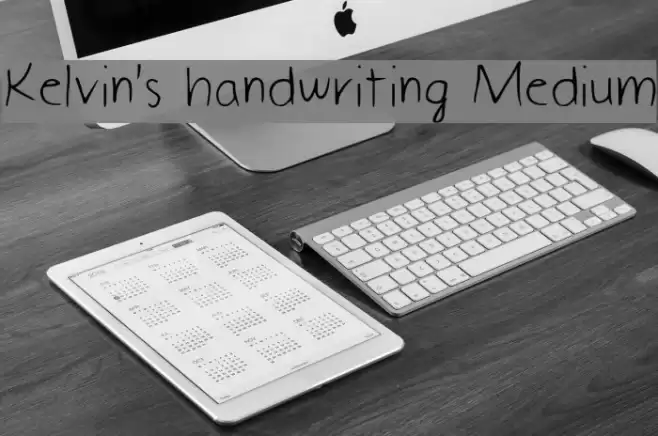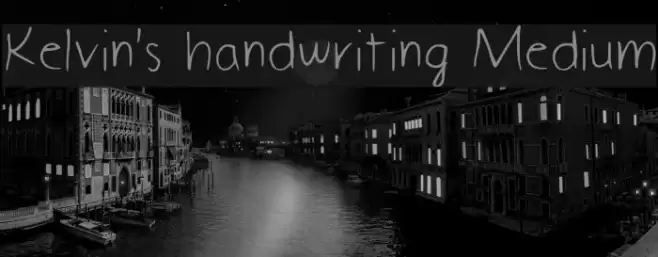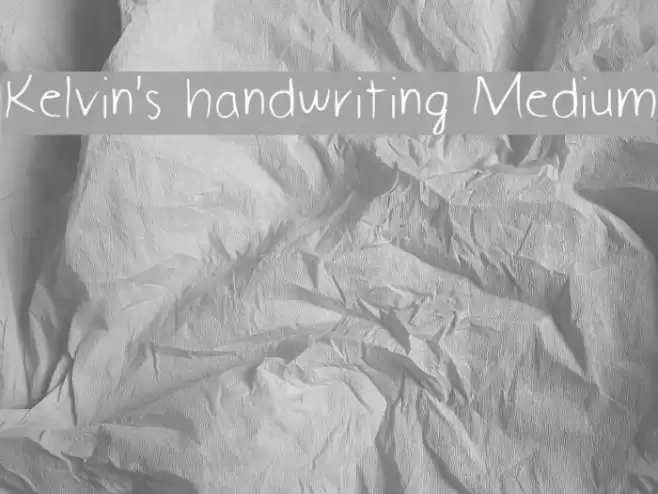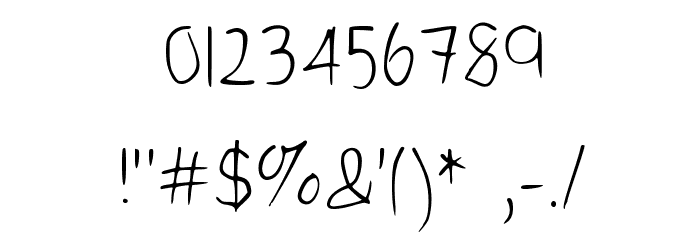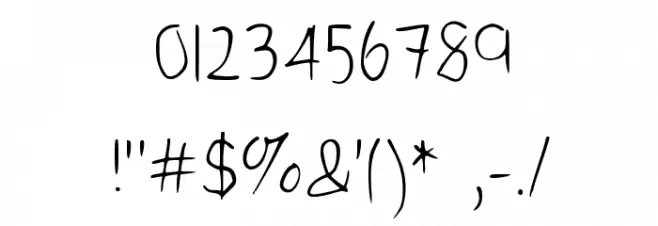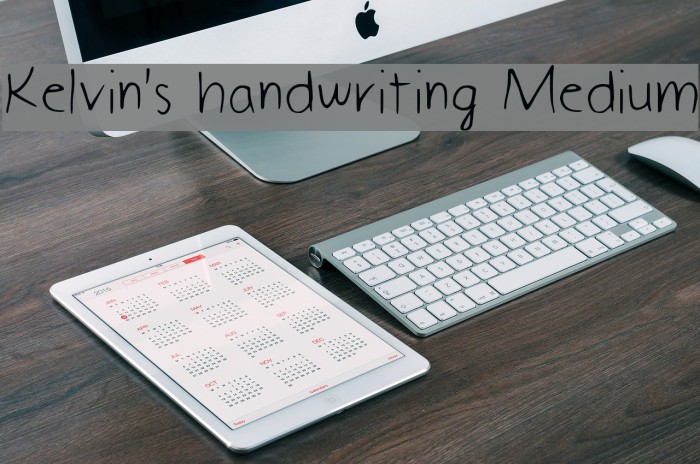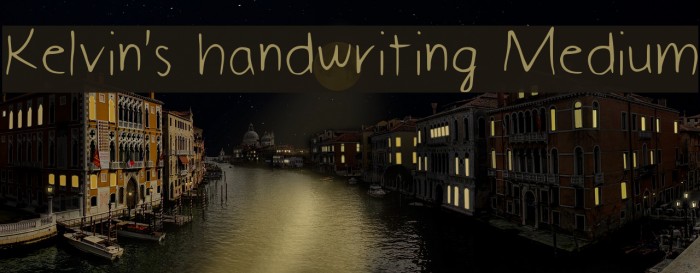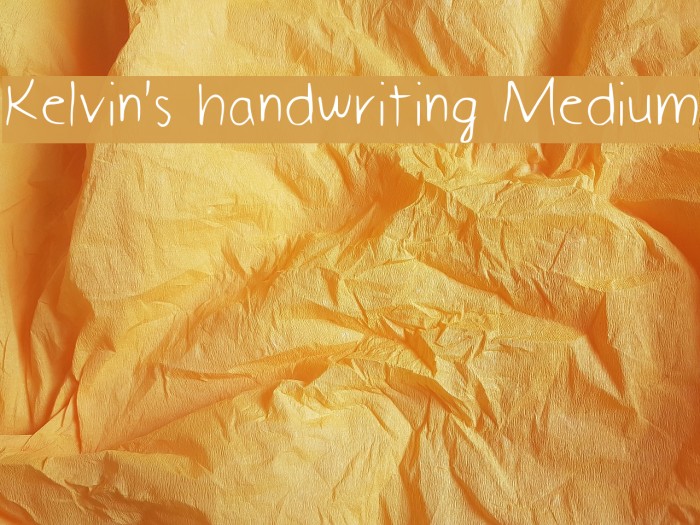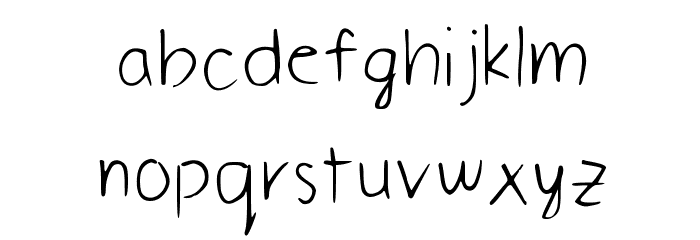
Kelvin's handwriting Medium Font
Kelvin's handwriting Medium Description
This font exudes a casual and personal touch, reminiscent of authentic handwriting. The characters are slightly irregular, giving it a natural and approachable feel. The strokes are smooth and fluid, with a medium weight that ensures readability while maintaining a relaxed aesthetic. The uppercase letters are slightly taller and more pronounced, while the lowercase letters have a gentle curve, adding to the font's charm. The numerals and special characters are consistent with the overall style, ensuring a cohesive look across all text. This font is perfect for projects that require a personal or informal tone, such as invitations, personal notes, or creative projects.
A casual, handwritten-style font with medium weight and smooth, fluid strokes from Uncategorized fonts.
- Proposed Projects: Ideal for invitations, personal notes, creative projects, and any design needing a personal touch.
- Overall Style: Casual, Personal
- Use Case: Invitations, Personal notes, Creative projects